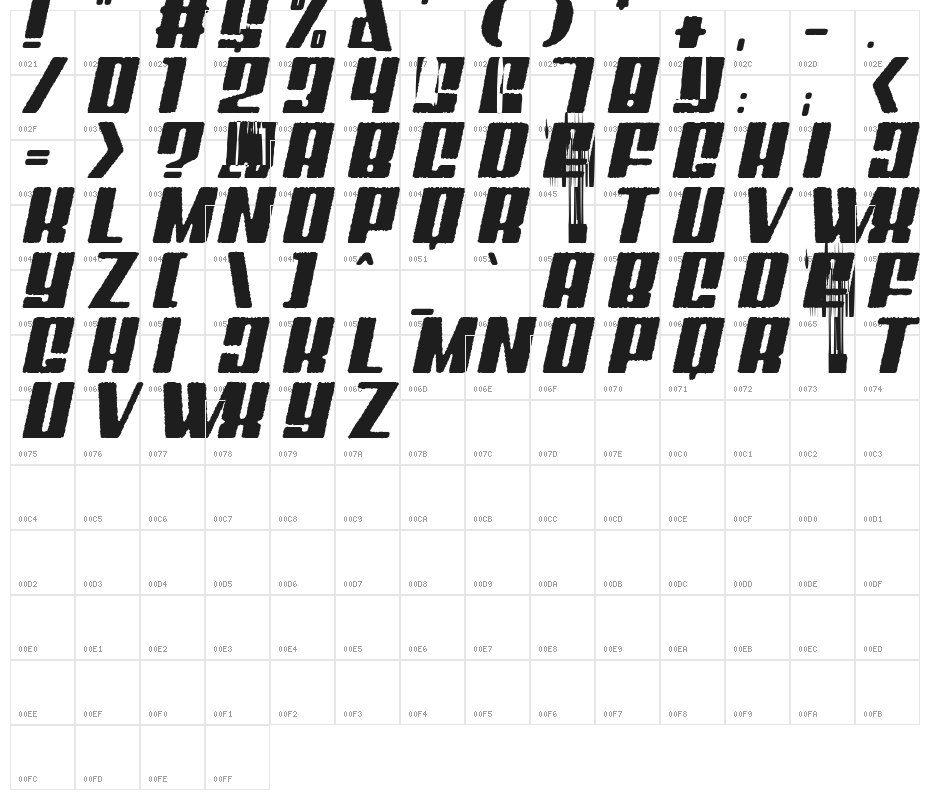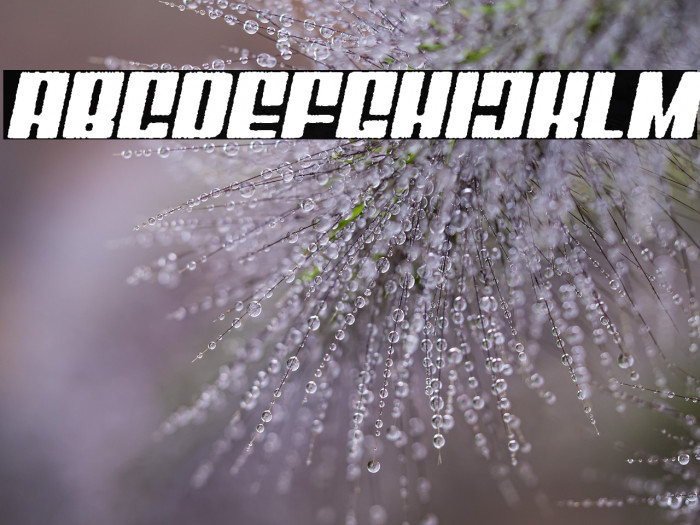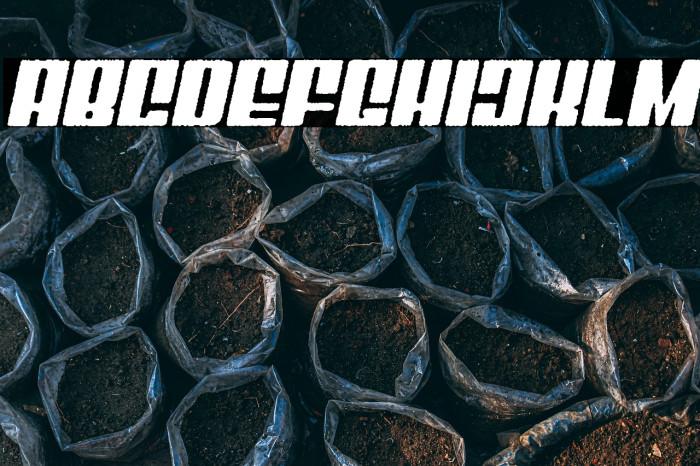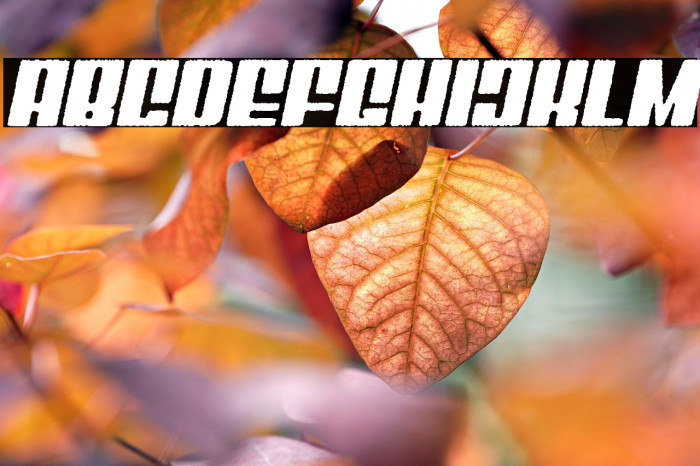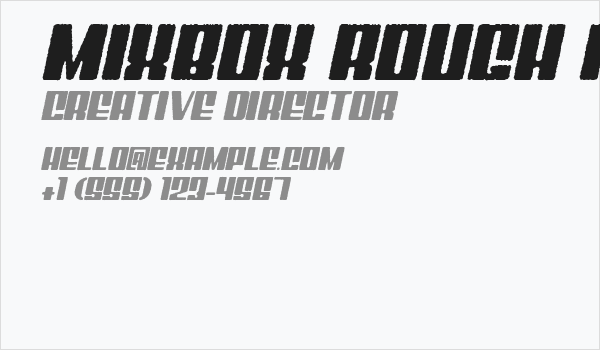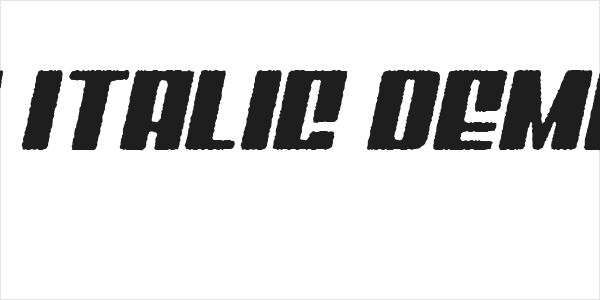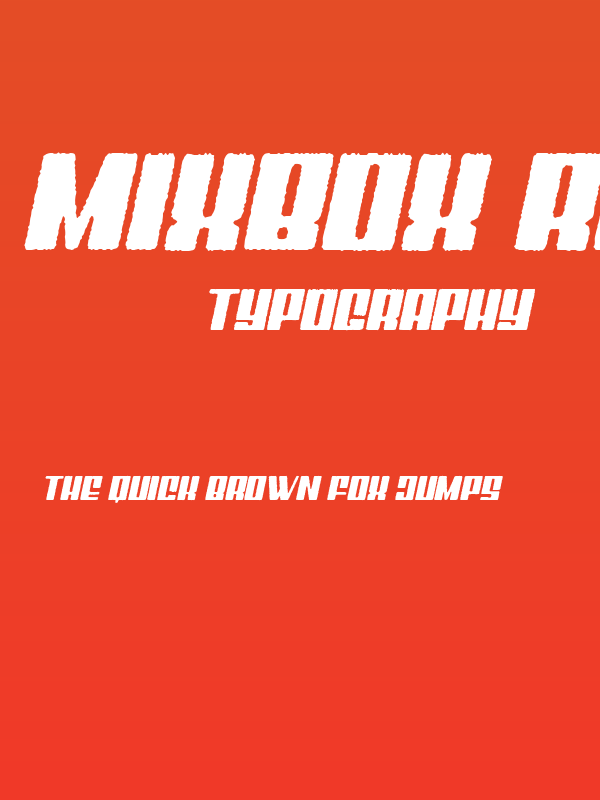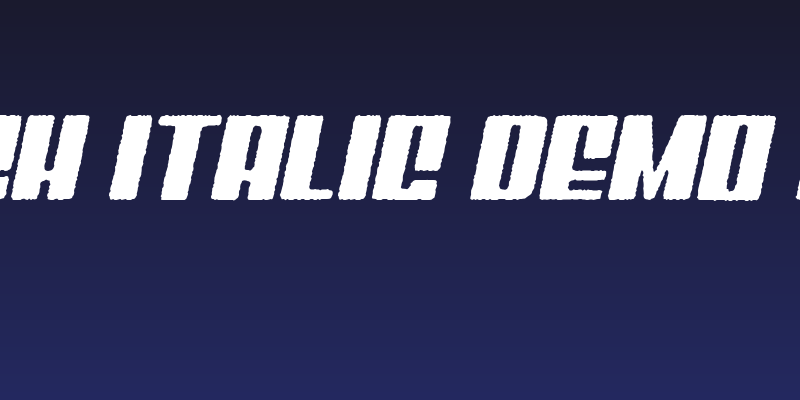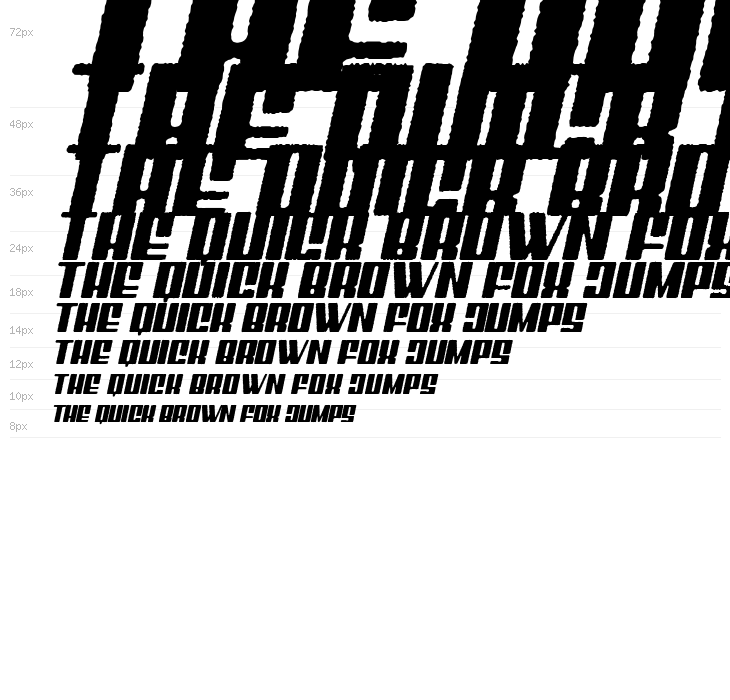
Mixbox Rough Italic Demo Rough Italic Font
Mixbox Rough Italic Demo Rough Italic Description
This font features a bold, rough, and italicized style that gives it a rugged and dynamic appearance. The characters are heavily stylized with a distressed texture, creating a sense of movement and energy. The uppercase and lowercase letters maintain a consistent slant, enhancing the italic effect. The numbers and special characters follow the same design principles, ensuring uniformity across all glyphs. This font's unique texture and boldness make it stand out, ideal for projects that require a strong visual impact.
| Proposed Projects | Ideal for posters, logos, branding, and any design requiring a bold and energetic look. |